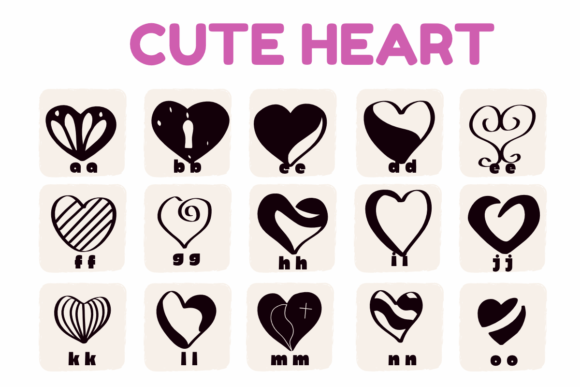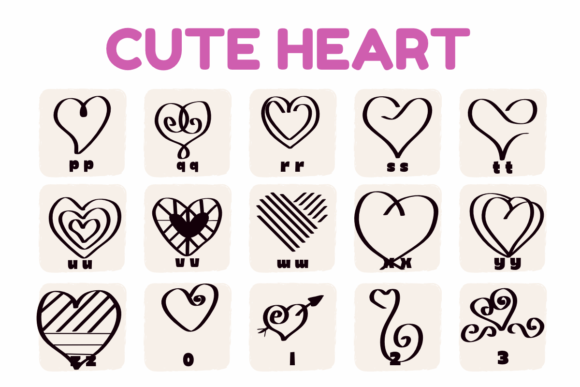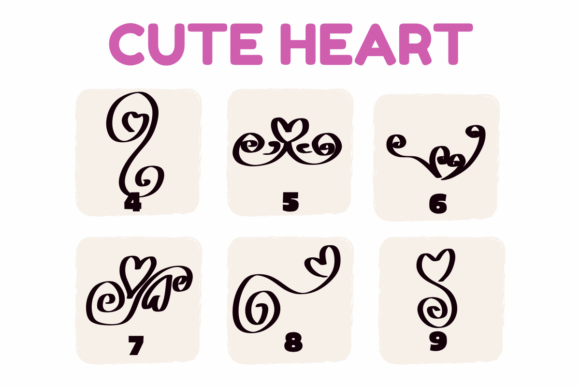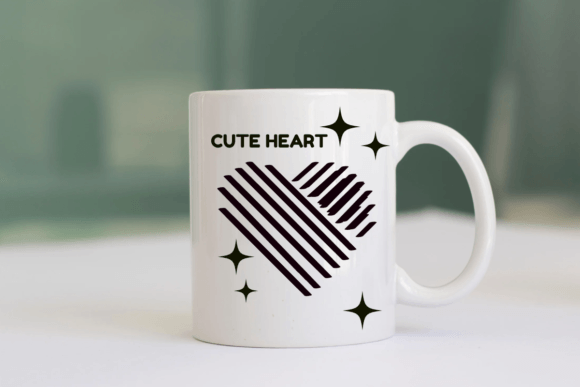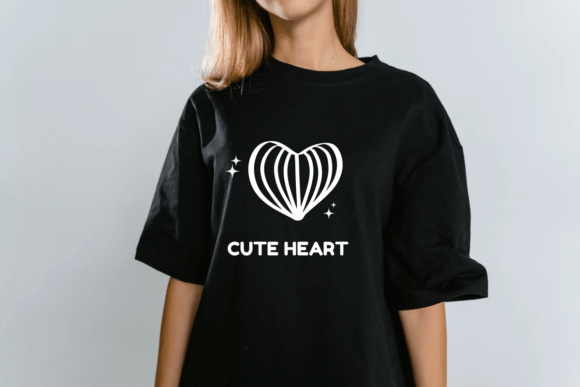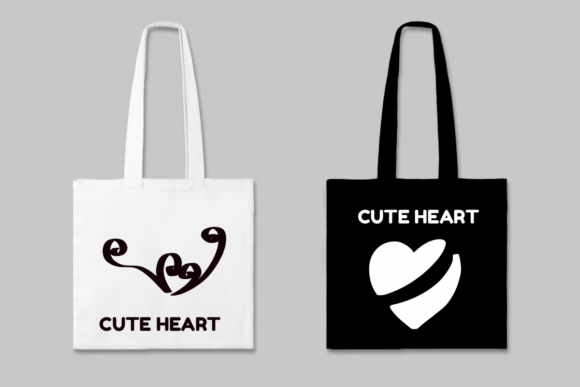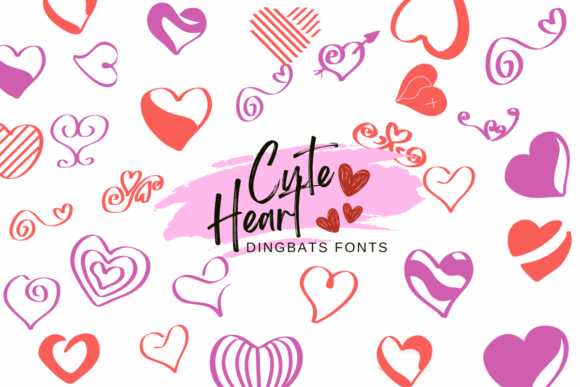
Cute Heart Font: Add Love and Charm to Your Designs
Are you looking for a fun and creative way to add a touch of love and charm to your designs? Look no further than the Cute Heart Font! This delightful dingbat font features a variety of heart shapes that are perfect for making your cards, invitations, decorations, and more look sweet and playful.
What is Cute Heart Font?
Cute Heart Font is a unique and fun font that consists of a range of heart shapes, each designed to bring a smile to your face. Unlike traditional fonts, Cute Heart Font is a dingbat font, which means that each character is a graphical symbol rather than a letter or number. This makes it perfect for adding visual interest and personality to your designs.
Features of Cute Heart Font
- Variety of Heart Shapes: Cute Heart Font features a range of heart shapes, from classic and simple to more elaborate and decorative. Whether you’re looking for a bold and statement-making heart or a delicate and dainty one, this font has got you covered.
- Perfect for Designers and Crafters: Cute Heart Font is a dream come true for designers and crafters who love to add a personal touch to their work. Whether you’re making cards, invitations, decorations, or other crafts, this font is sure to bring a touch of love and whimsy to your designs.
Uses for Cute Heart Font
Cute Heart Font is incredibly versatile, and can be used in a wide range of design projects. Here are a few ideas to get you started:
- Valentine’s Day Cards: Create adorable Valentine’s Day cards with a sweet and playful touch.
- Wedding Invitations: Add a romantic and whimsical touch to your wedding invitations with Cute Heart Font.
- Decorations: Use Cute Heart Font to create cute and colorful decorations for parties, special events, or everyday decor.
- Crafting Projects: Add a personal touch to your crafting projects, such as scrapbooking, journaling, or handmade cards.